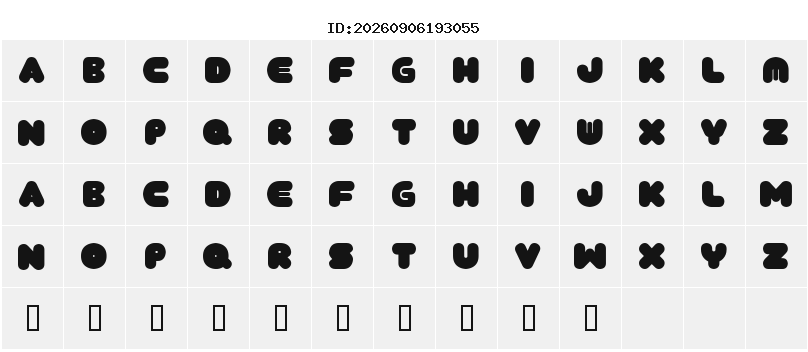
TANTOR Preview
• Font Name: TANTOR
• Full Font Name: TANTOR
• Version: Fenotypefaces 2001. Emil Bertell
About TANTOR.ttf
TANTOR.ttf is a modern, elegant sans-serif font designed for ultimate readability and visual harmony. Perfect for branding, headlines, web design, and print materials.